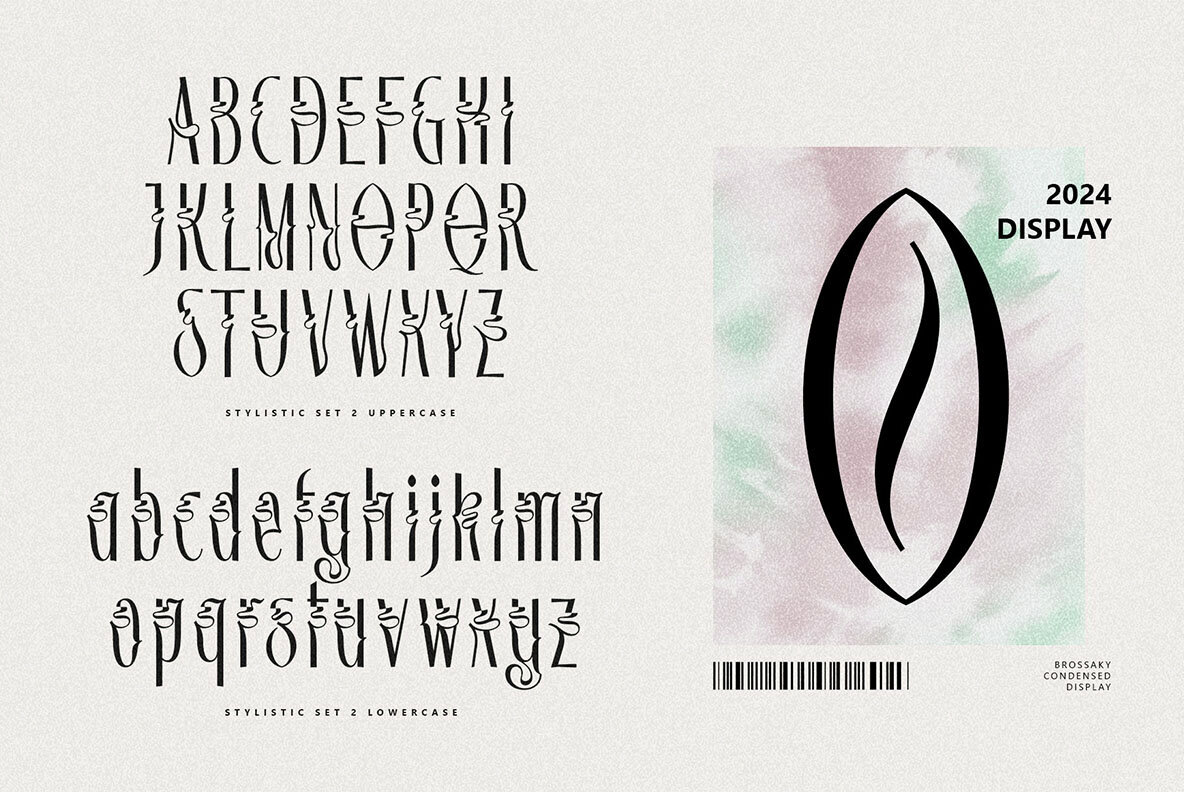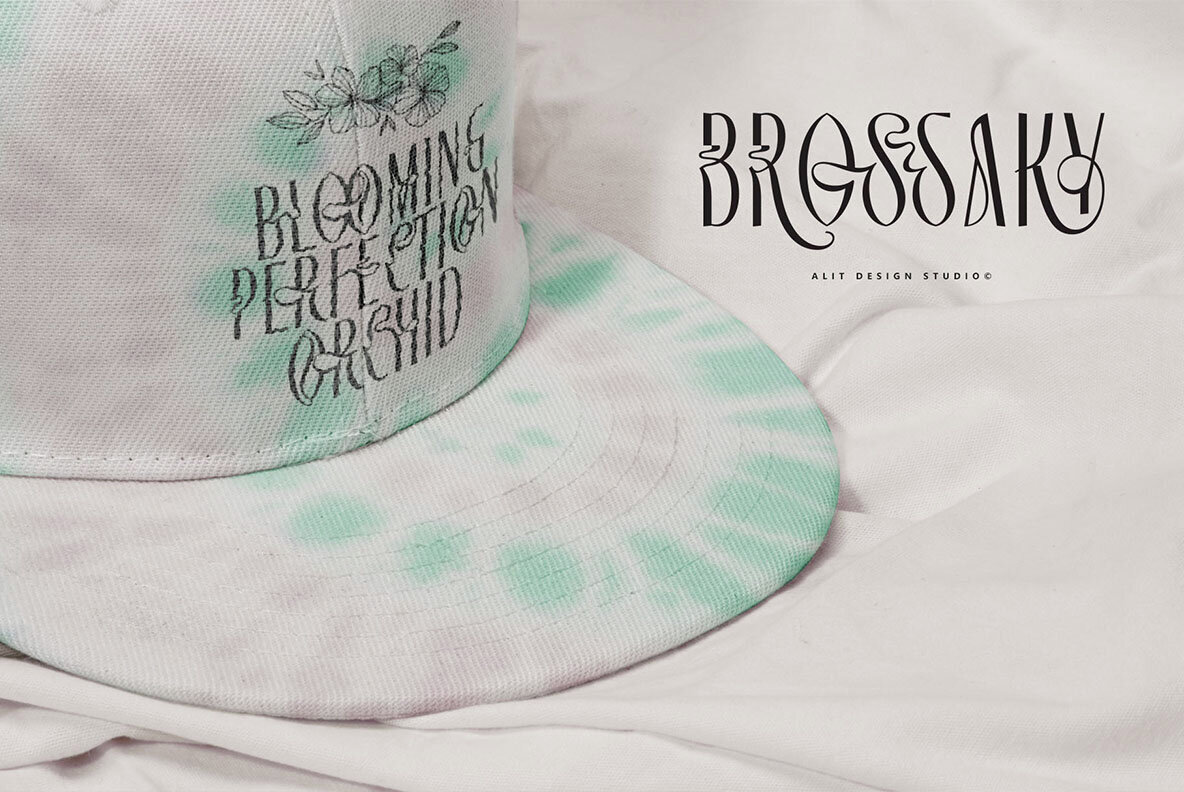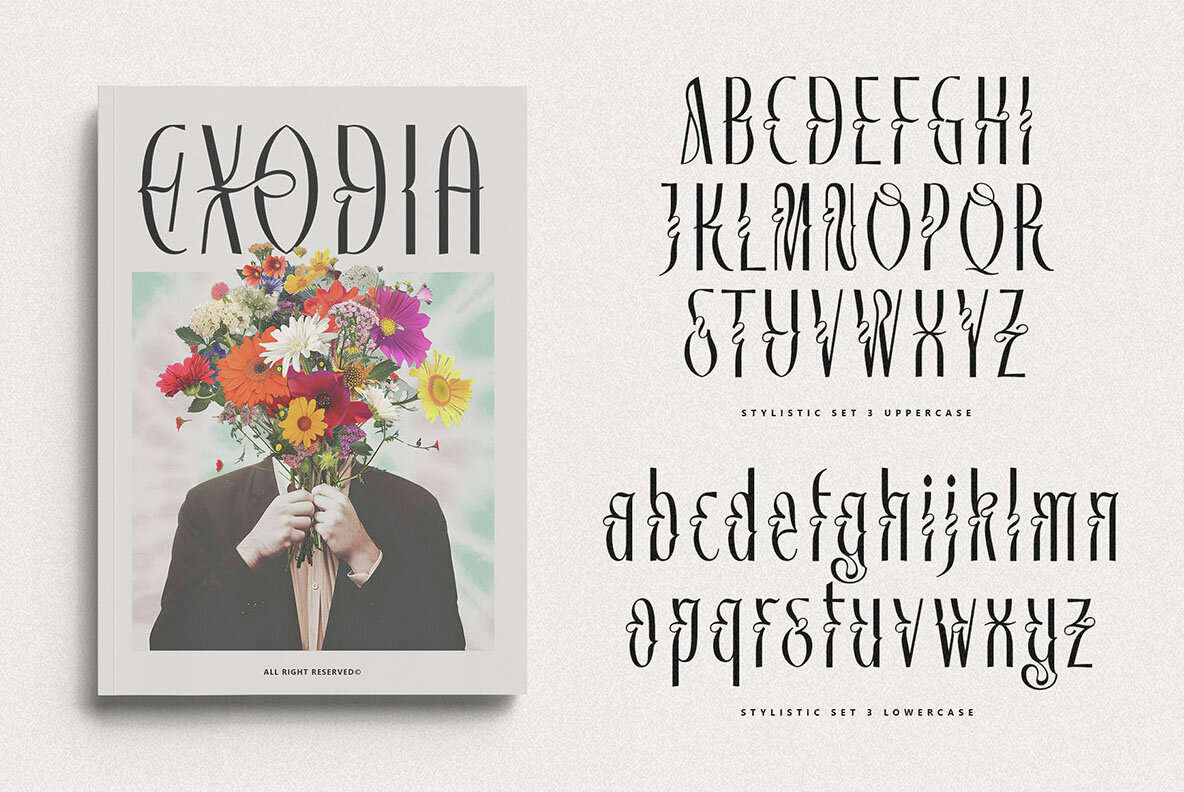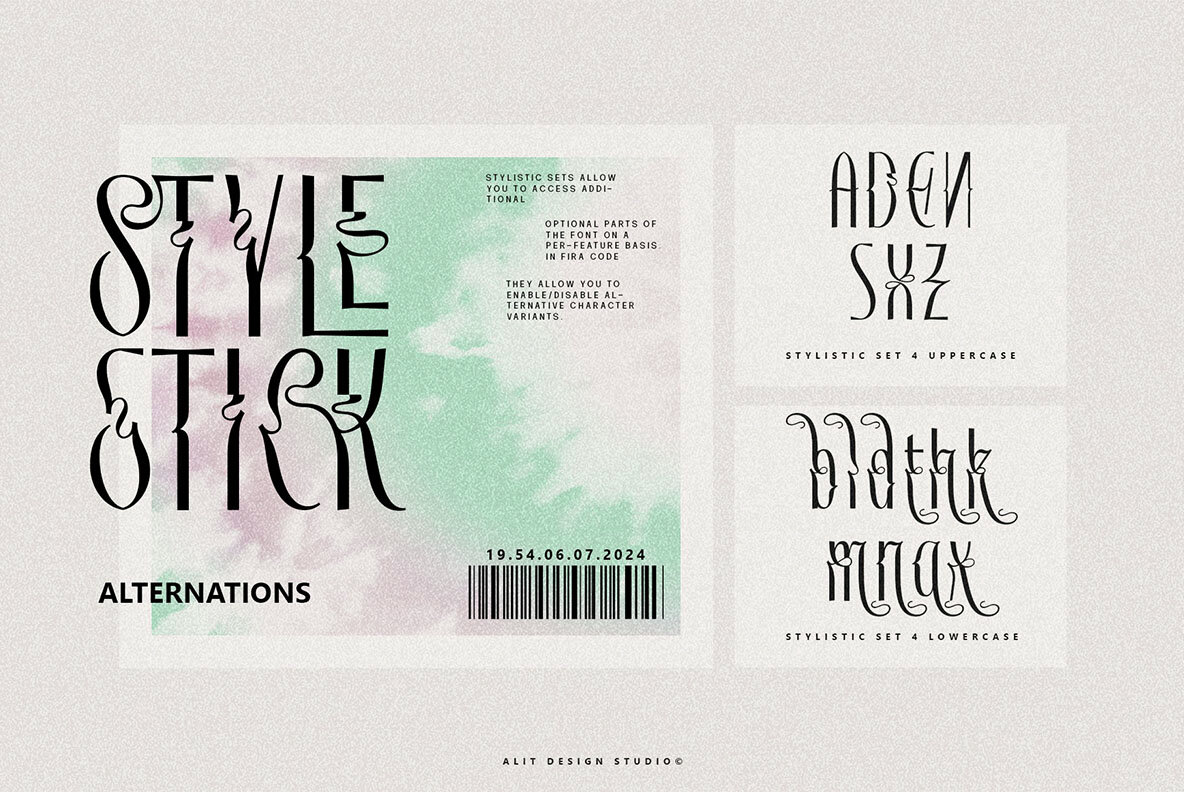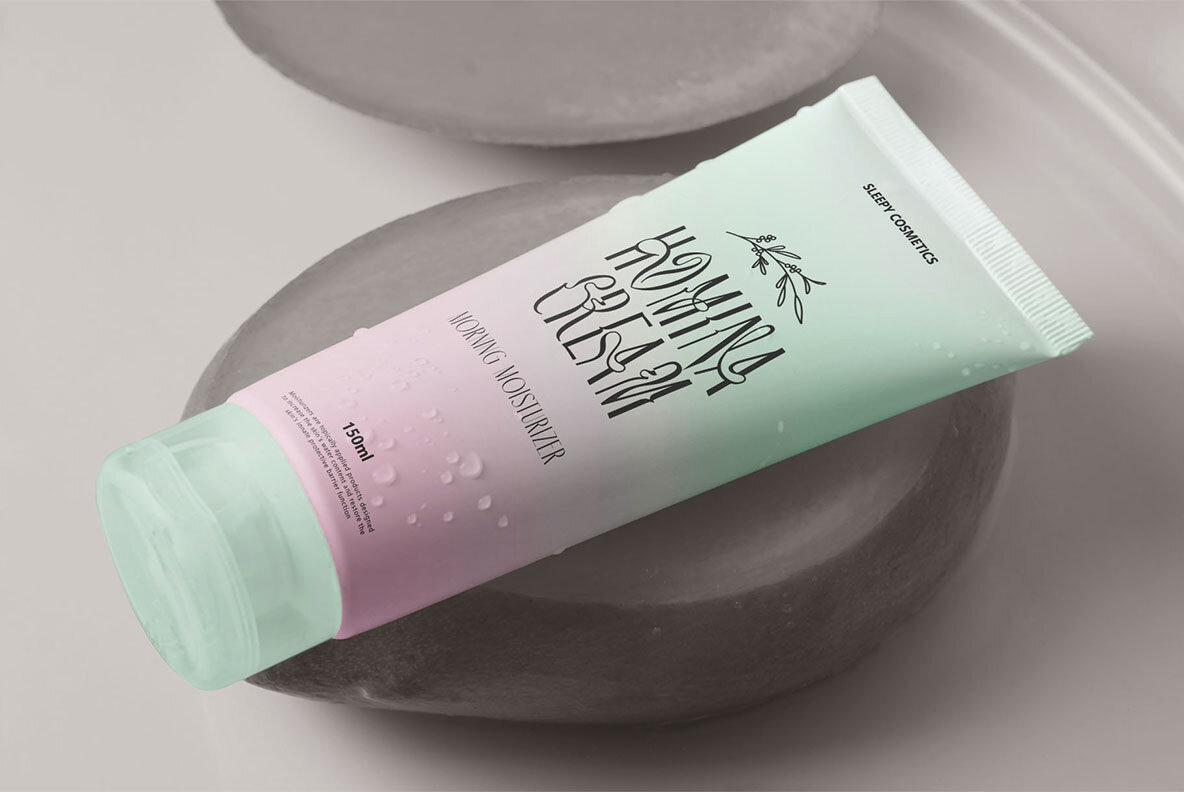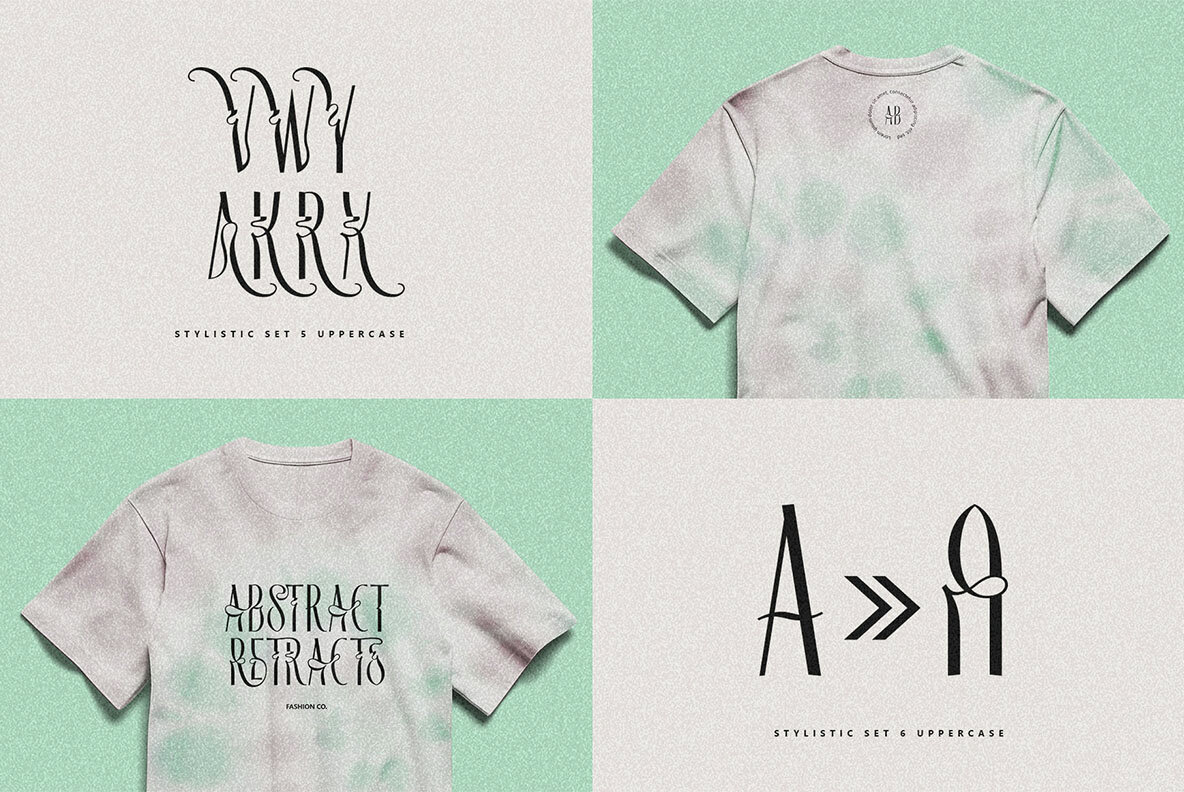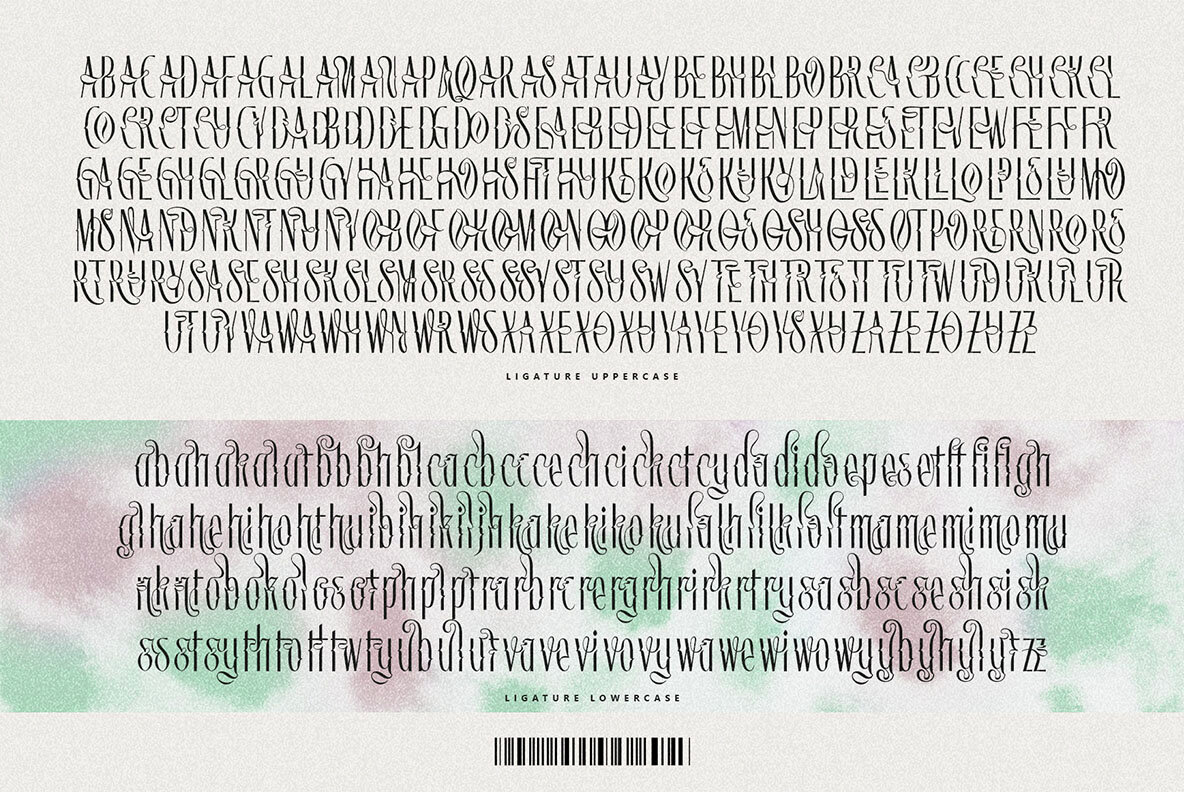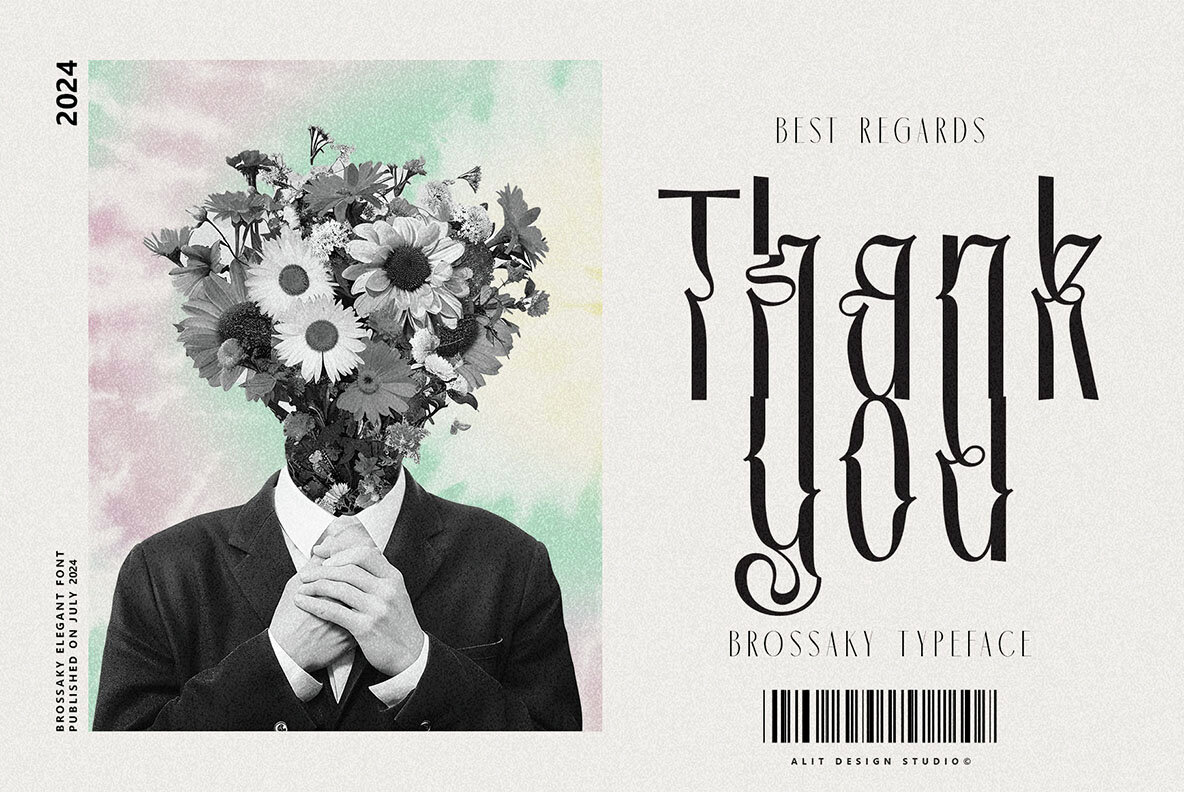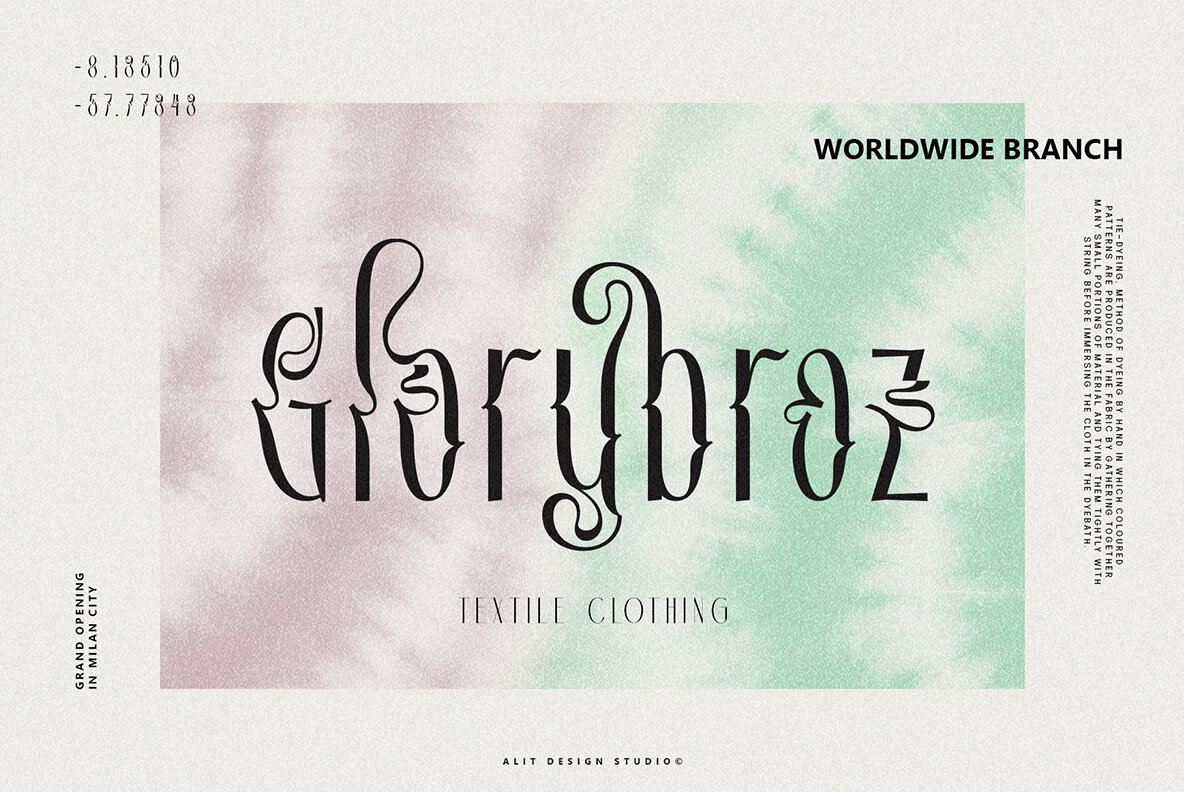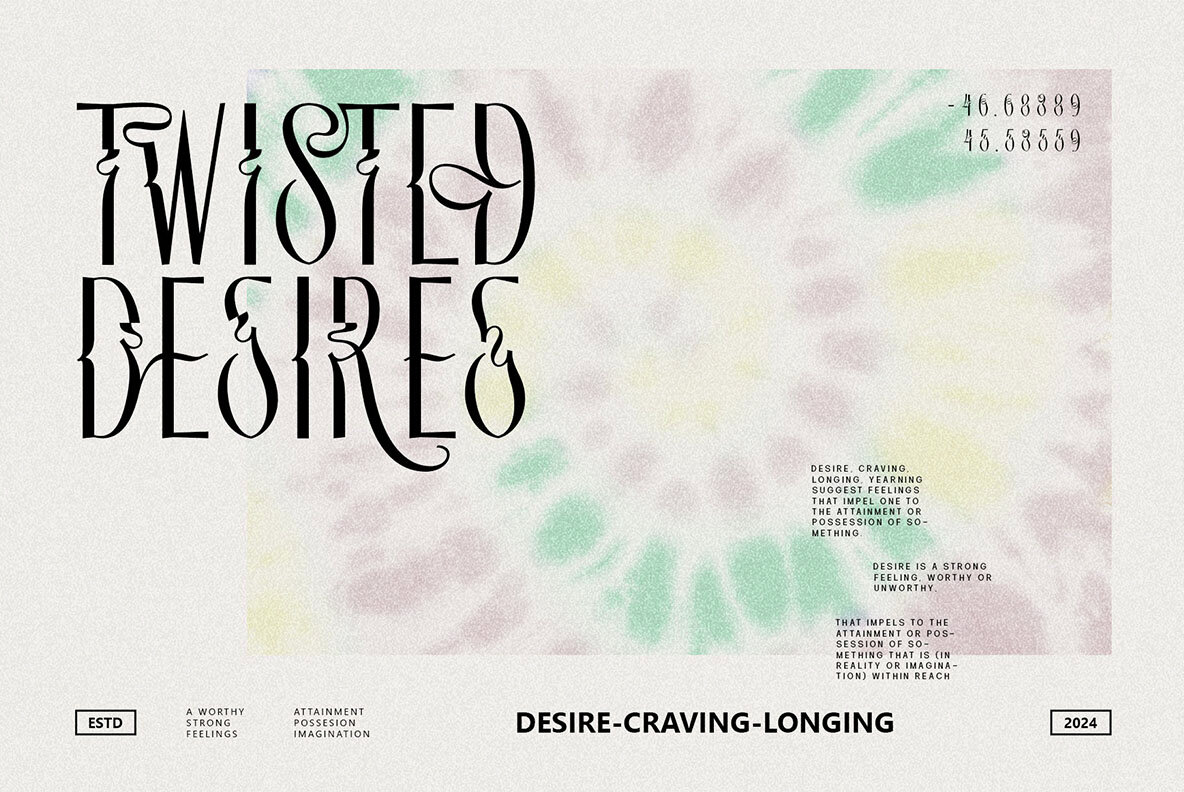
Brossaky Font
Brossaky Regular
Introducing Brossaky Typeface, a modern sans serif font designed to elevate your projects with its sleek and stylish characters. This unique typeface features elegant ribbon-like alternatives that add a touch of sophistication to any design. Perfect for branding, web design, advertising, and more, Brossaky Typeface combines contemporary aesthetics with versatile functionality. Key Features: With Brossaky Typeface, you get the best of modern sans serif design combined with unique, eye-catching elements. Make your text stand out and leave a lasting impression with this versatile and stylish typeface.